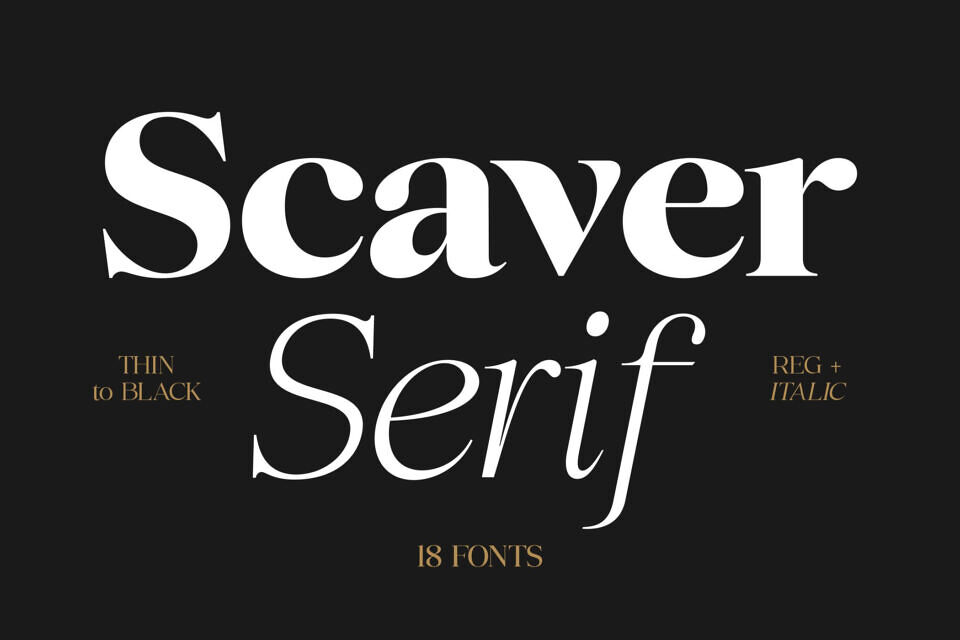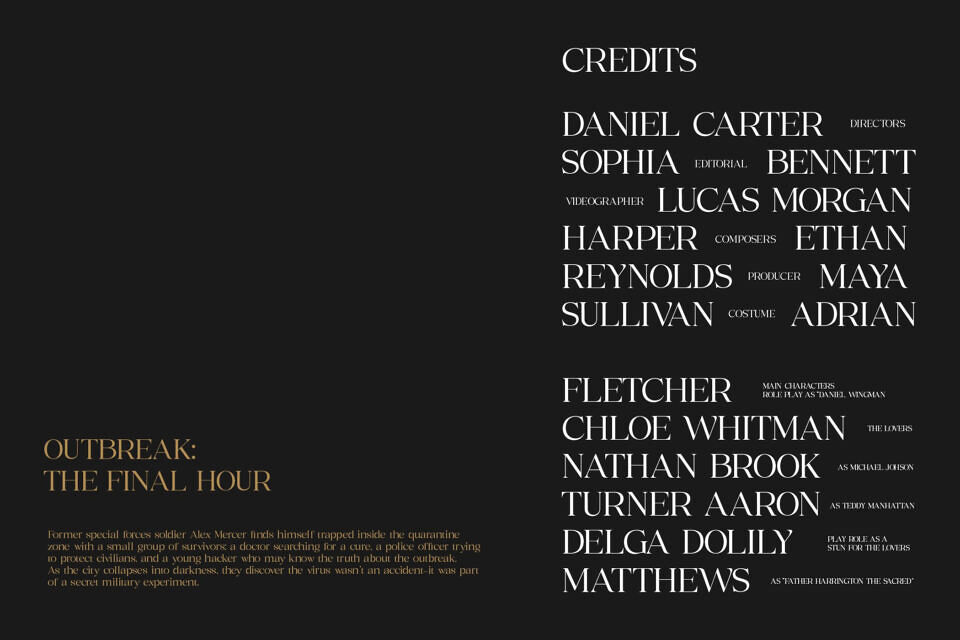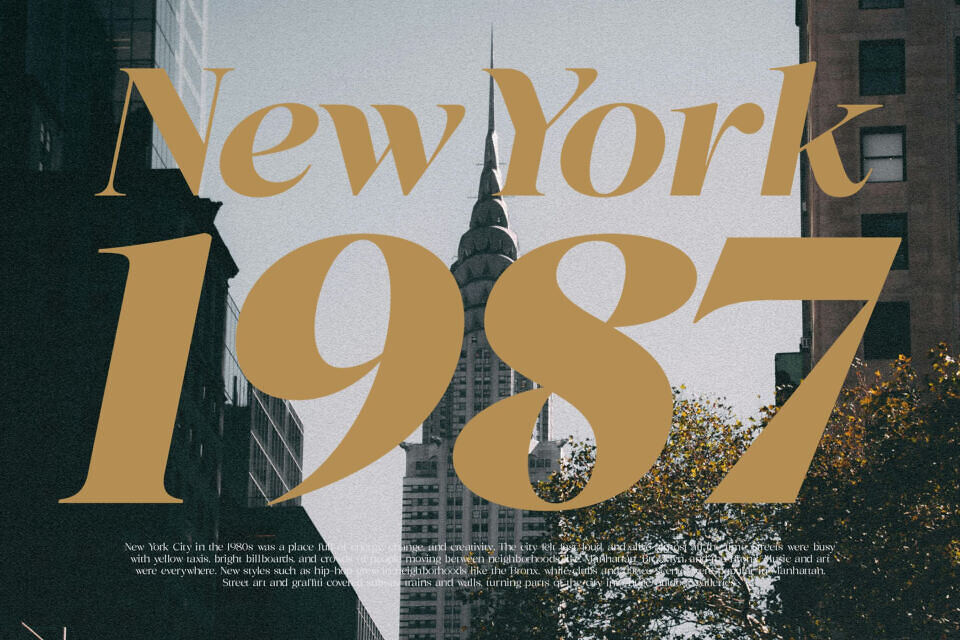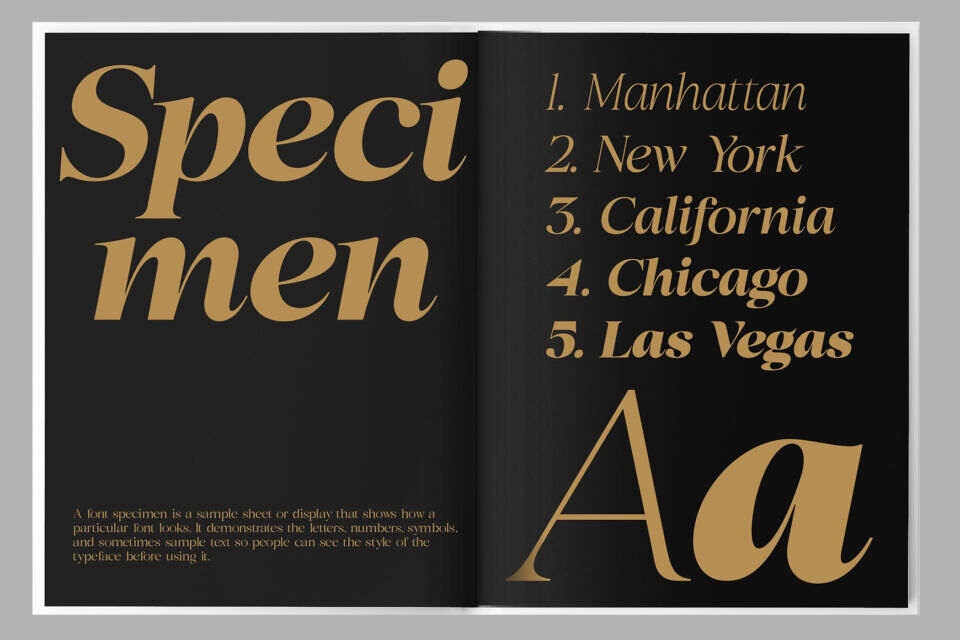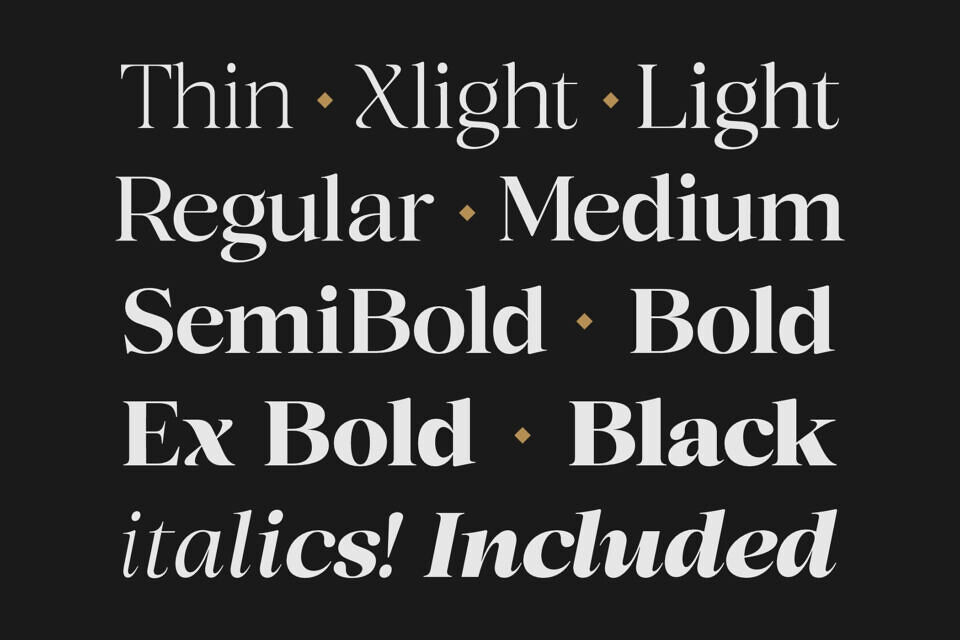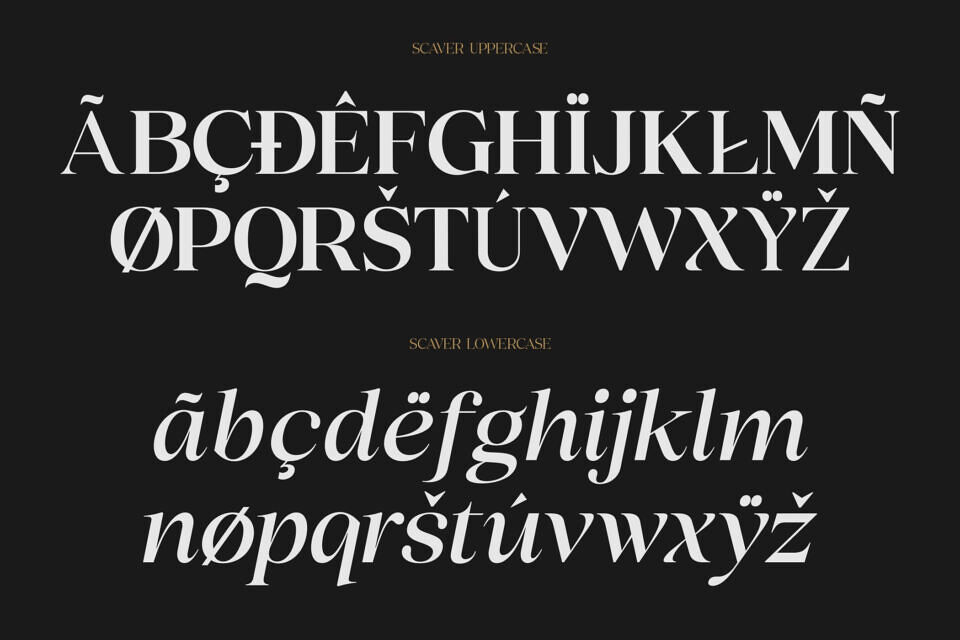
Scaver is a refined modern serif font family designed for creators who want elegance, luxury, and strong visual impact. With 18 carefully crafted styles from Thin to Black including beautiful italics, this typeface gives you complete flexibility for sophisticated typography.
Scaver’s design boasts contrasting strokes, curved lines, and elegant serifs, making it ideal for high-end branding, editorials, and luxury packaging. Its timeless, professional aesthetic suits premium brands, boutiques, and sophisticated websites. Scaver is perfect for logos, fashion, and beauty brands, as well as wedding invitations and luxury packaging, offering a modern, classy feel that elevates any design project.